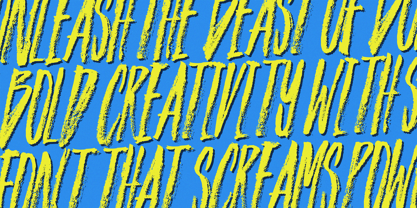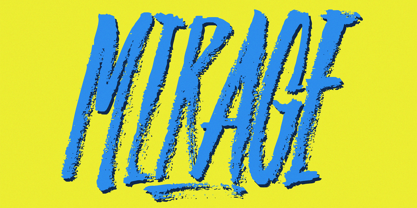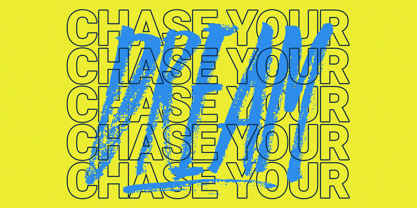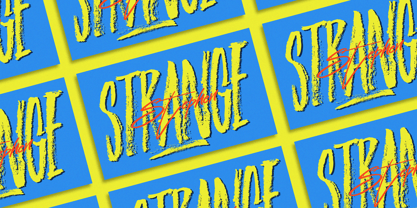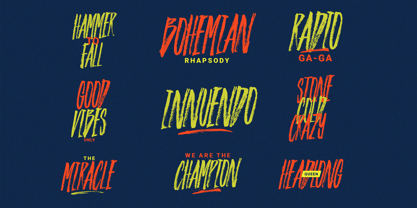
Imagine Brush
by Ferry Ardana Putra
The Imagine Brush Font Family was designed by Ferry Ardana Putra and published by Ferry Ardana Putra. Imagine Brush contains 1 styles.
Step into a world where imagination meets raw intensity.
Introducing Imagine, a handcrafted condensed brush font that dares to defy the ordinary. Born from the bristles of a Kuretake dry brush and meticulously scanned stroke by stroke, this font captures the fierce energy of hand-lettering in its most primal form. Every letter bleeds authenticity — wild, imperfect, and unapologetically bold.
Crafted for creators who crave more than just clean lines and sterile shapes, Imagine delivers uppercase-only characters packed with attitude. Each glyph is infused with expressive brush textures that scream movement, emotion, and rebellion. Whether you're designing a band poster, streetwear brand, movie title, or eye-grabbing editorial layout, this font doesn’t whisper — it roars.
Imagine isn’t just a font — it’s a force of creative nature. With additional swashes, rich punctuation, symbols, and multilingual support, it’s fully armed for your boldest design ventures. The condensed form lets you maximize space while still keeping that raw, untamed brush aesthetic alive in every inch.
This is not a font for the faint-hearted. This is a tool for visionaries, rebels, and those who dare to create something unforgettable.
Let the brush speak for you. Let the world hear your imagination.
Imagine Features:
• A full set of Uppercase and Lowercase
• Numbers and Punctuation
• Multilingual Language Support
• PUA Encoded Characters
• OpenType Features
• +252 Total Glyphs
• +15 Dry Brush Swashes included! (You can access the ornaments in Photoshop by navigating to Window > Glyphs)